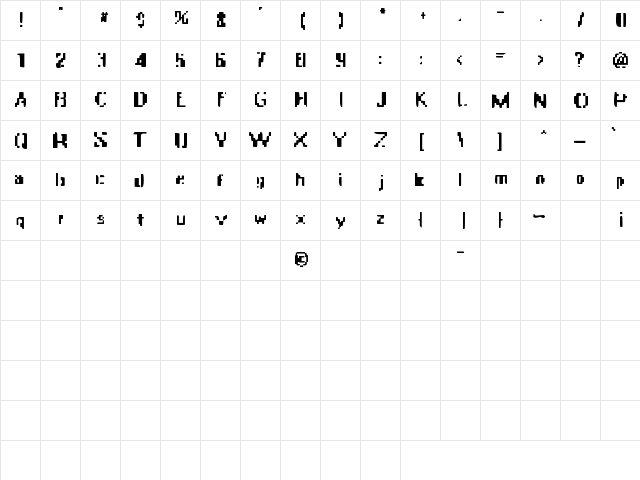
ApocalypseFax Regular
| Designer | Kirk Shelton |
Design Context for ApocalypseFax Typeface
ApocalypseFax is a composed and adaptable typeface that performs quietly and consistently across a wide range of design contexts.